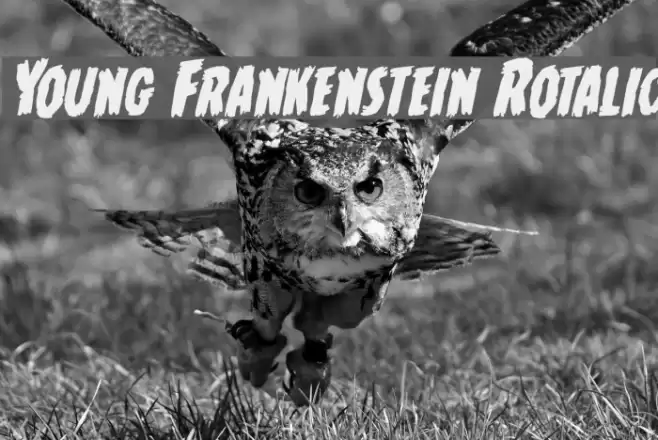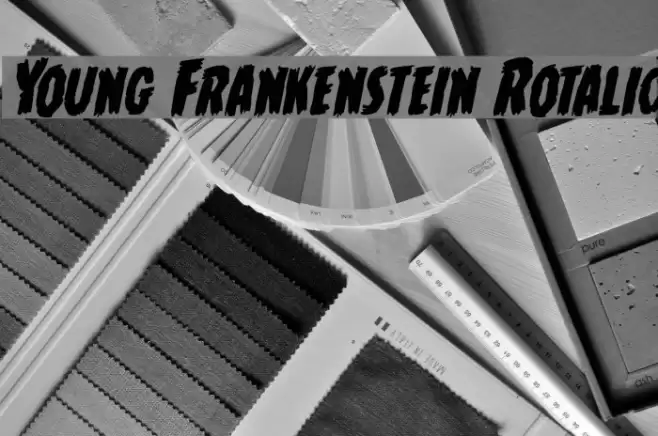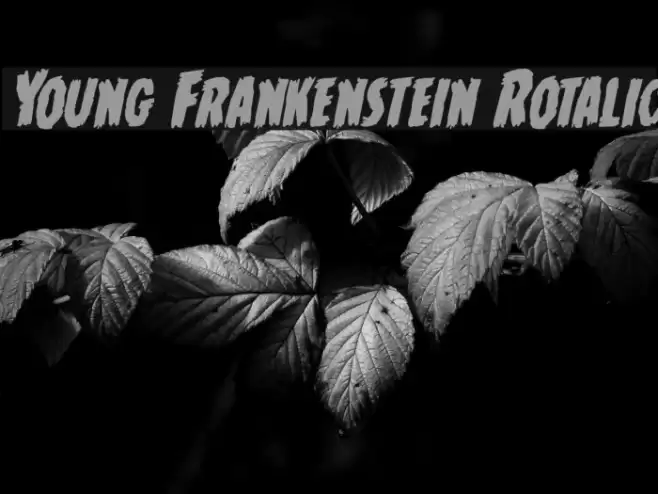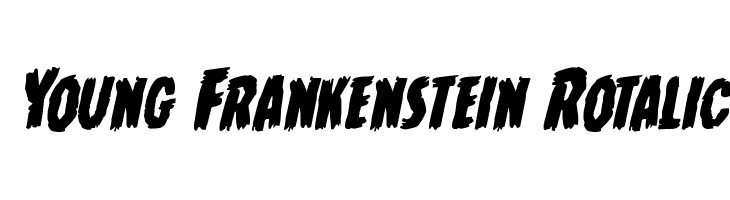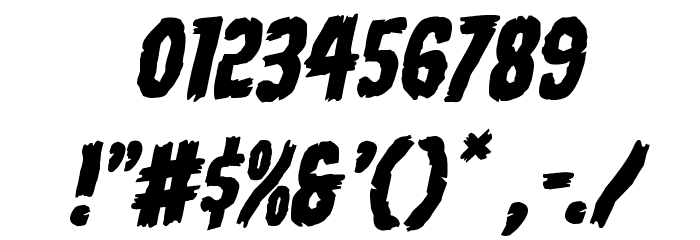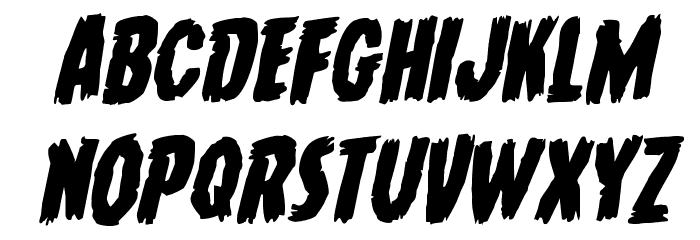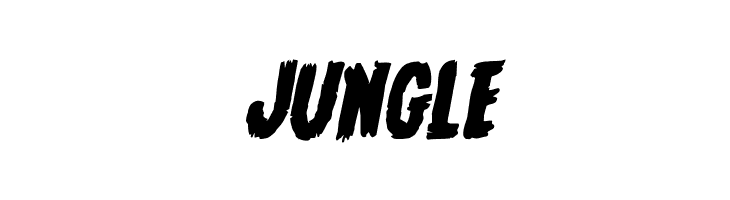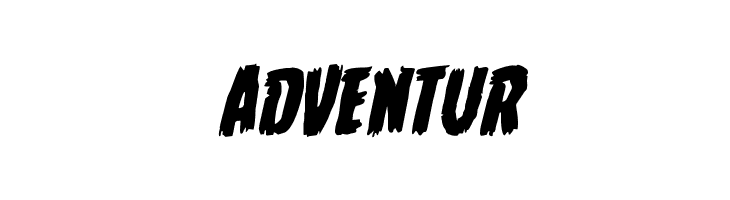
Young Frankenstein Rotalic
This font features a bold, dynamic style with a brush-like texture that gives it a hand-painted appearance. The characters are slightly slanted, adding a sense of movement and energy. The strokes are thick and uneven, contributing to a rugged and edgy aesthetic. The uppercase letters are prominent and impactful, while the lowercase letters maintain the same boldness. Numbers and special characters are equally expressive, making the font suitable for attention-grabbing designs. The overall look is both playful and dramatic, ideal for projects that require a strong visual impact.
A bold, brush-style font with a dynamic and edgy appearance.
- Proposed Projects: Ideal for movie posters, album covers, event flyers, and branding that requires a bold statement.
- Contrast: High
- Overall Style: Decorative